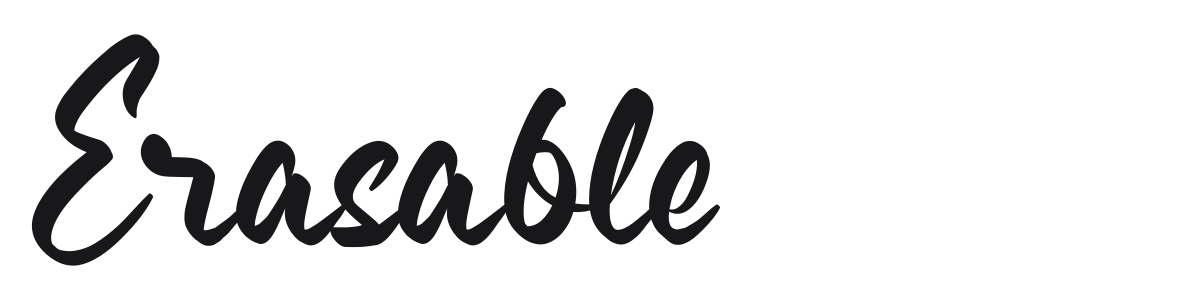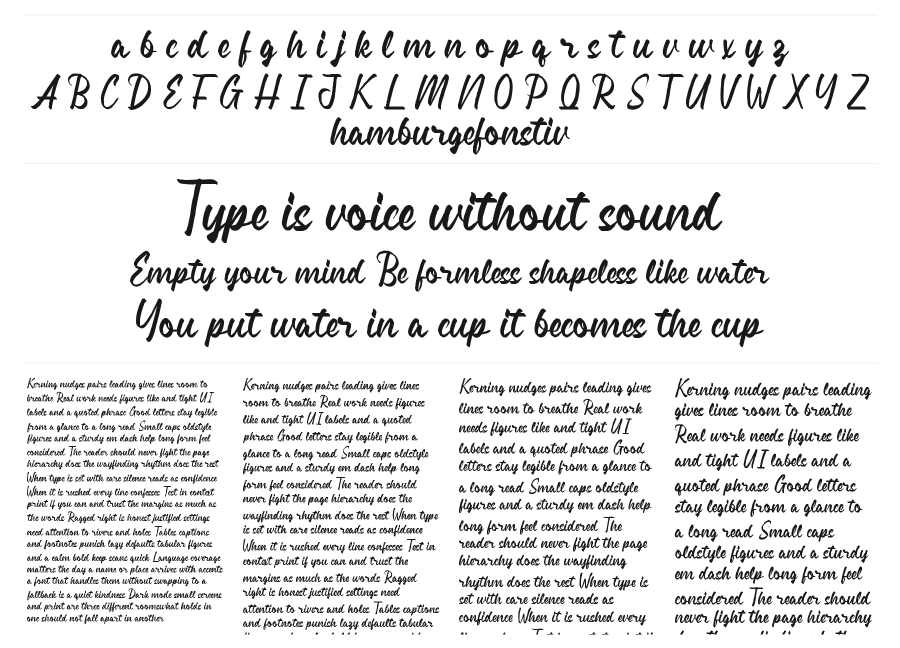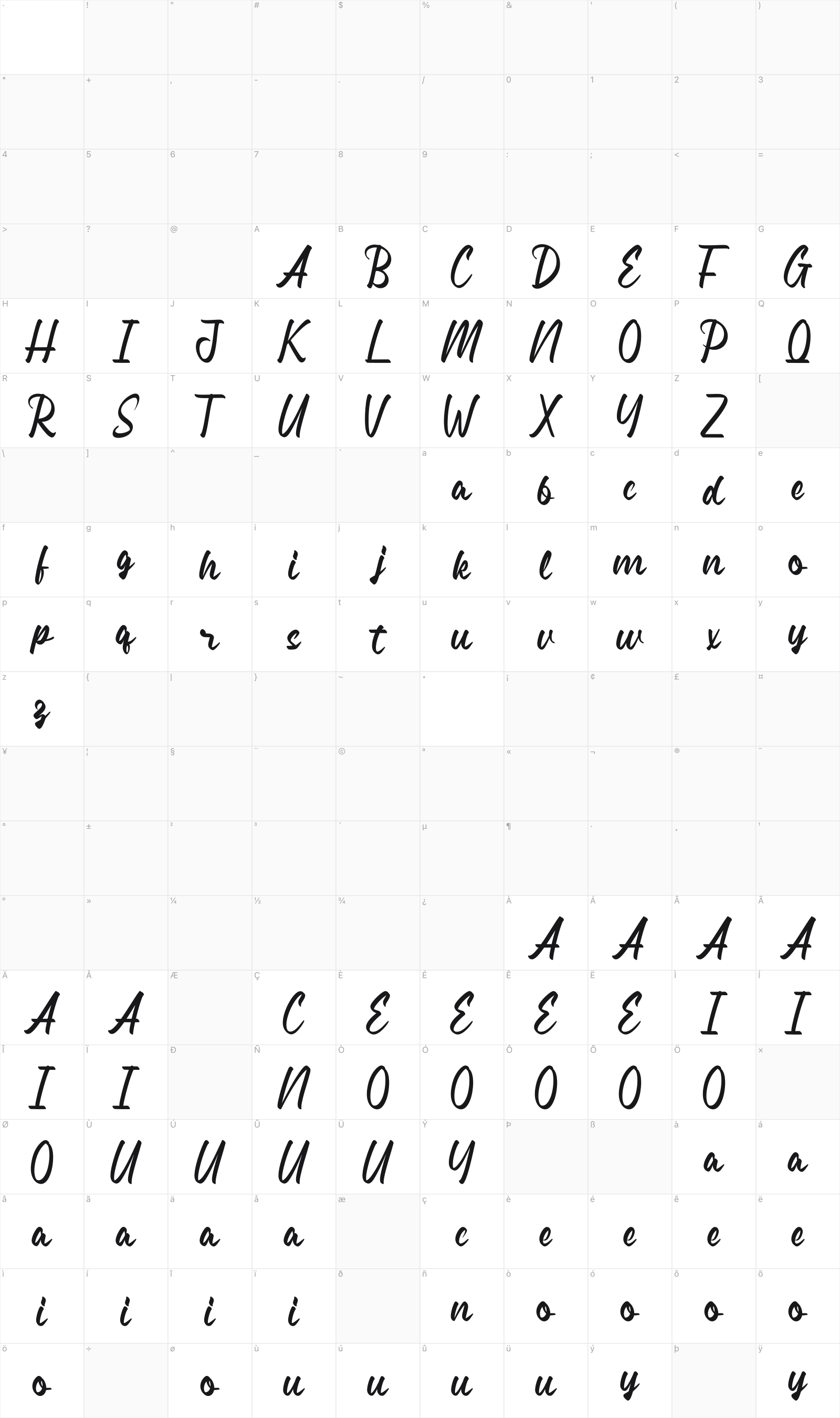
Erasable
Erasable is a bold brush script with the fluid energy of hand-lettered ink work. Strong stroke contrast, generous x-height, and a lively connected flow give it warmth without losing legibility. It reads naturally at large sizes for logos, product labels, and social media graphics.